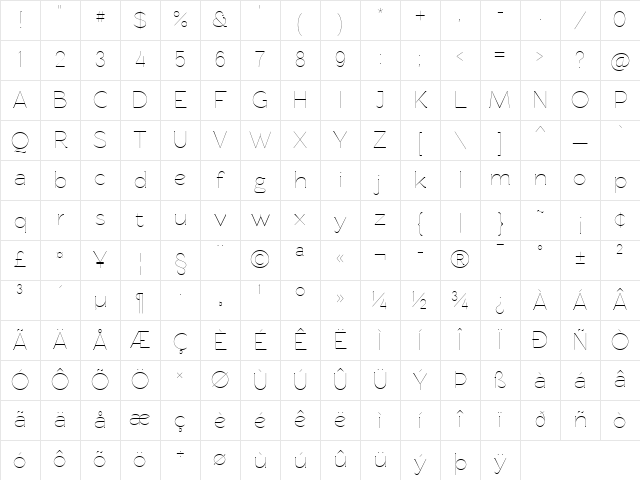
Rawengulk Ultralight Free Font
Rawengulk Ultralight
Style: Ultralight
Design Context for Rawengulk
Rawengulk is a composed and adaptable typeface that performs quietly and consistently across a wide range of design contexts. Its slender proportions lend an understated elegance to any composition.
Pro Tip: Use Rawengulk in both headline and body roles to test its range before committing to a single application.